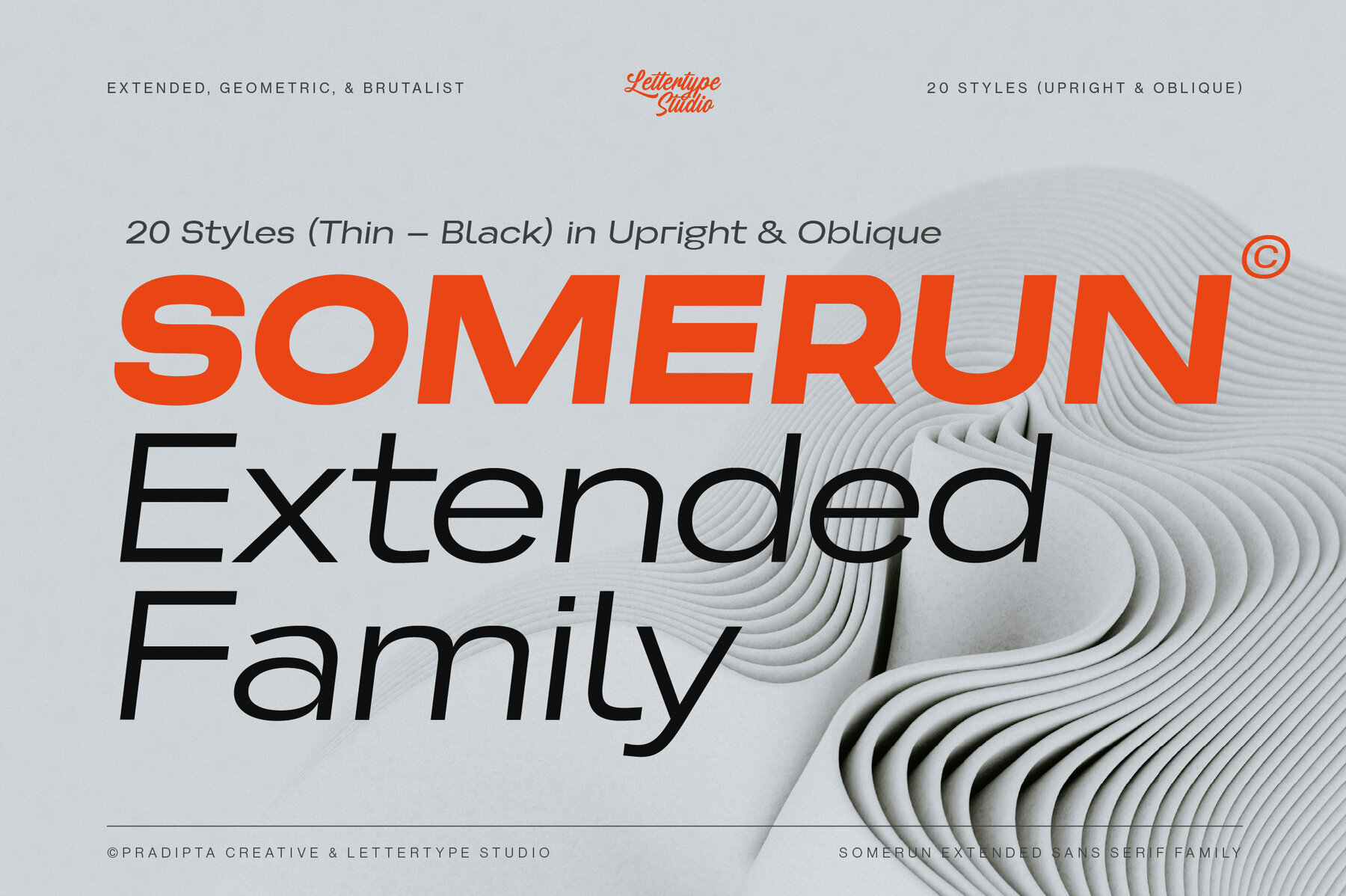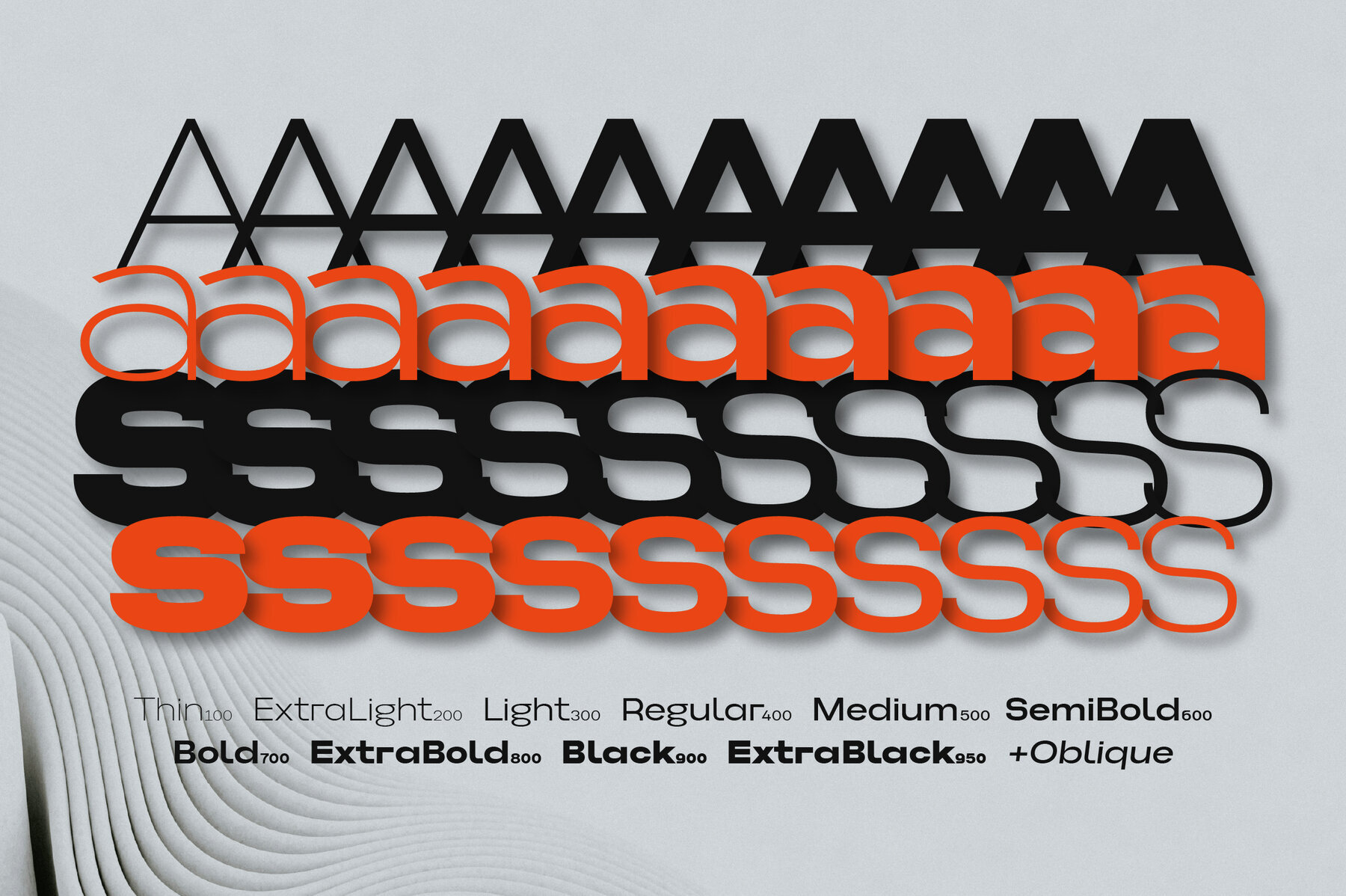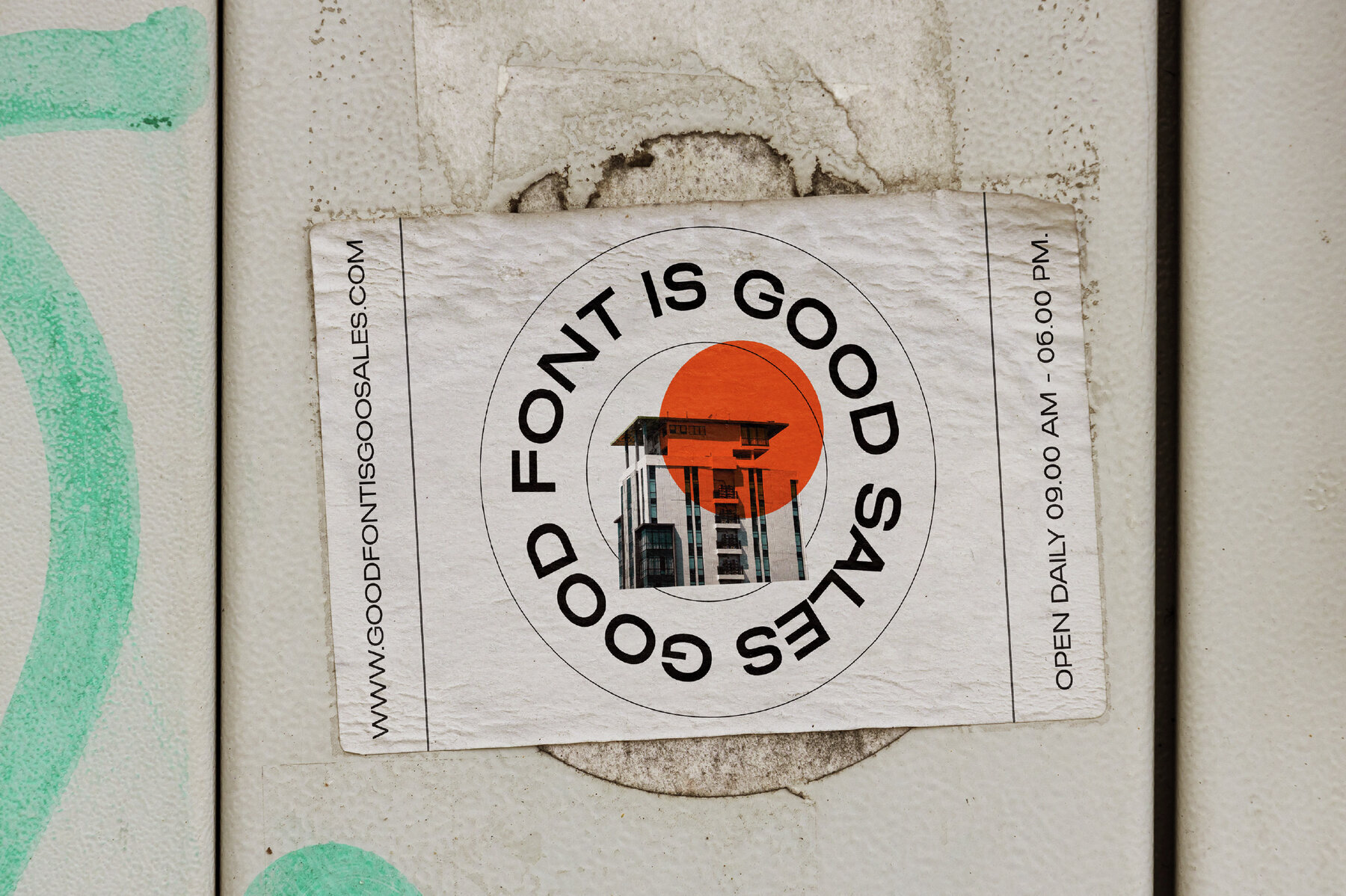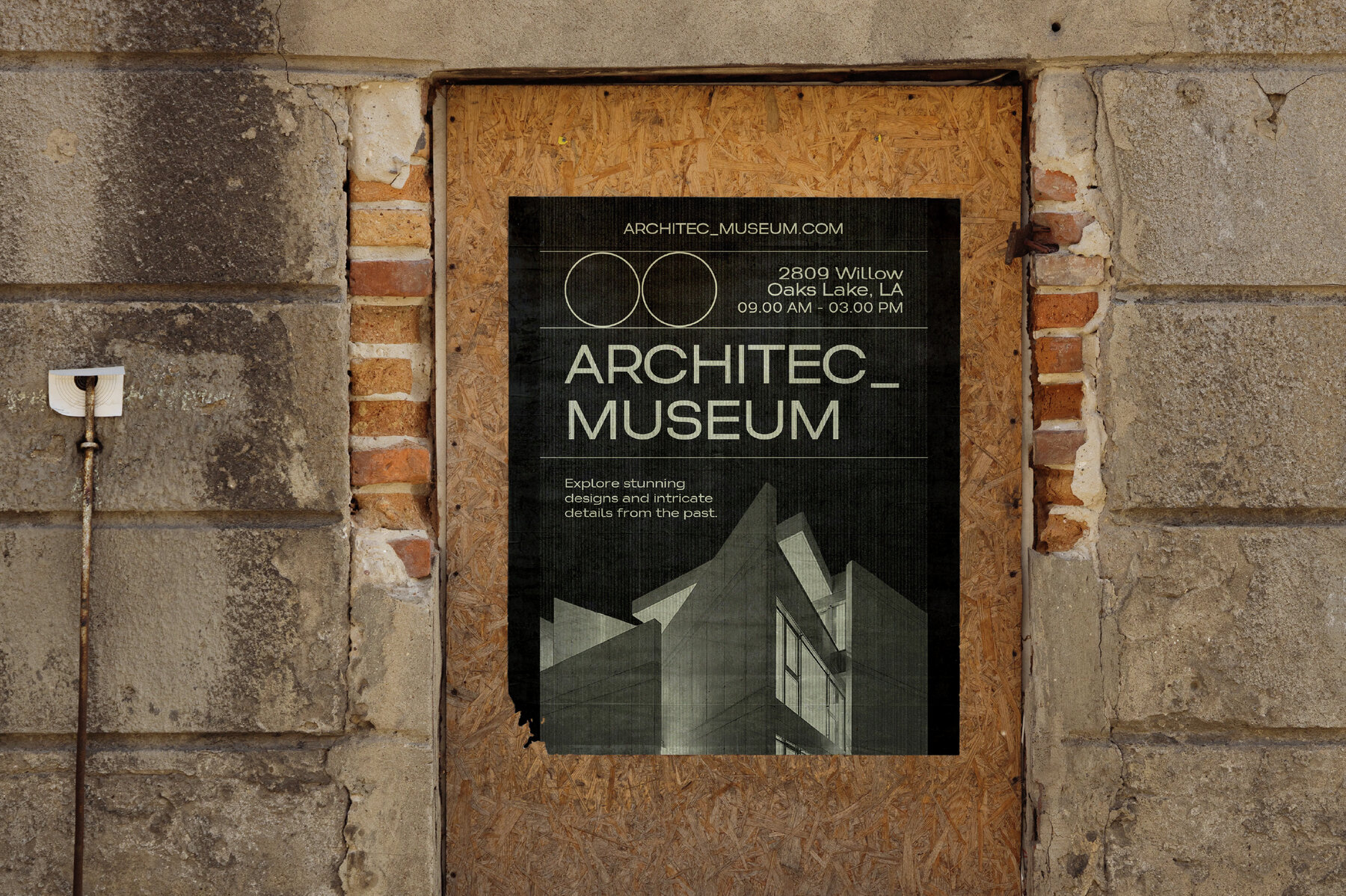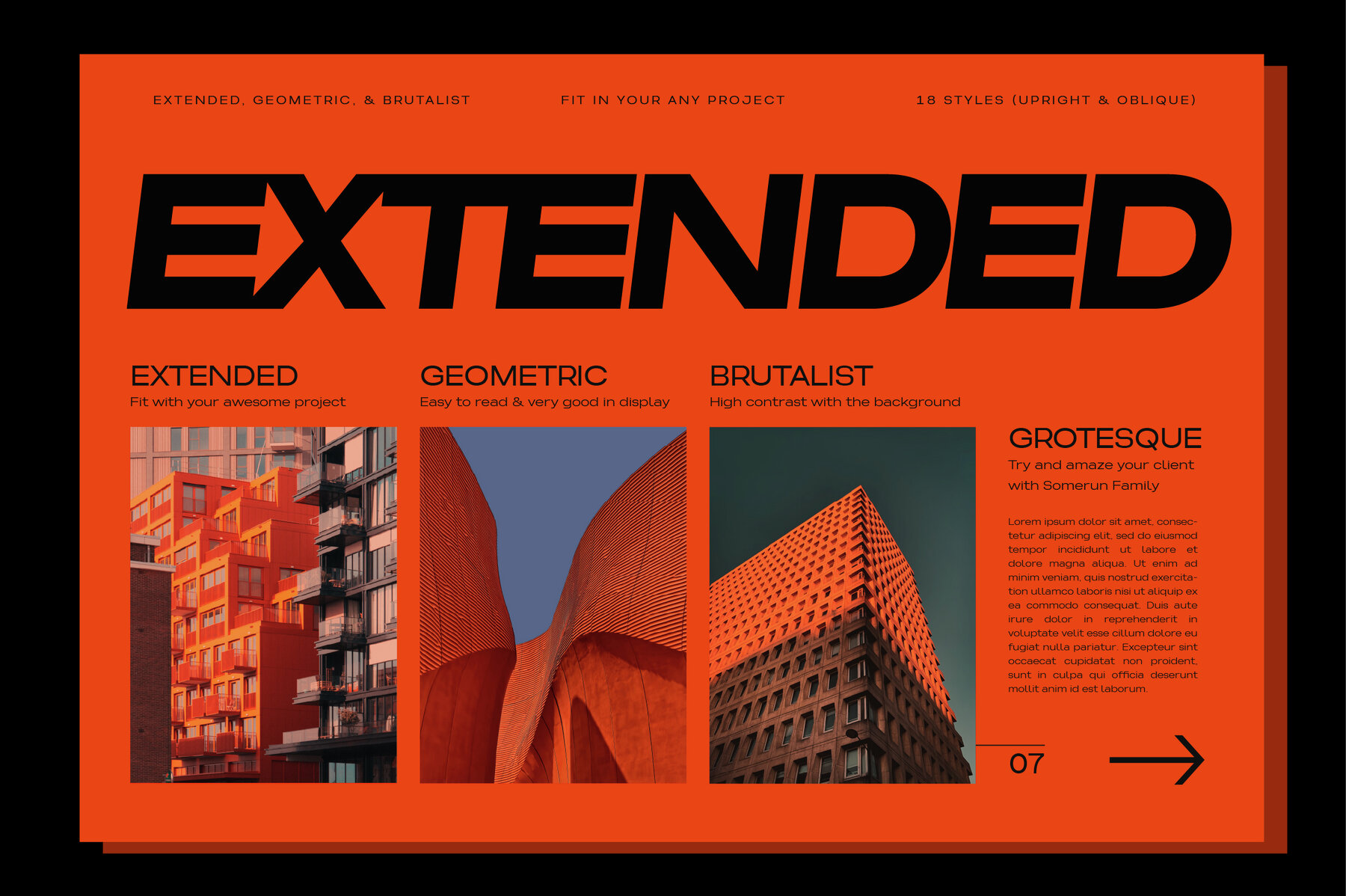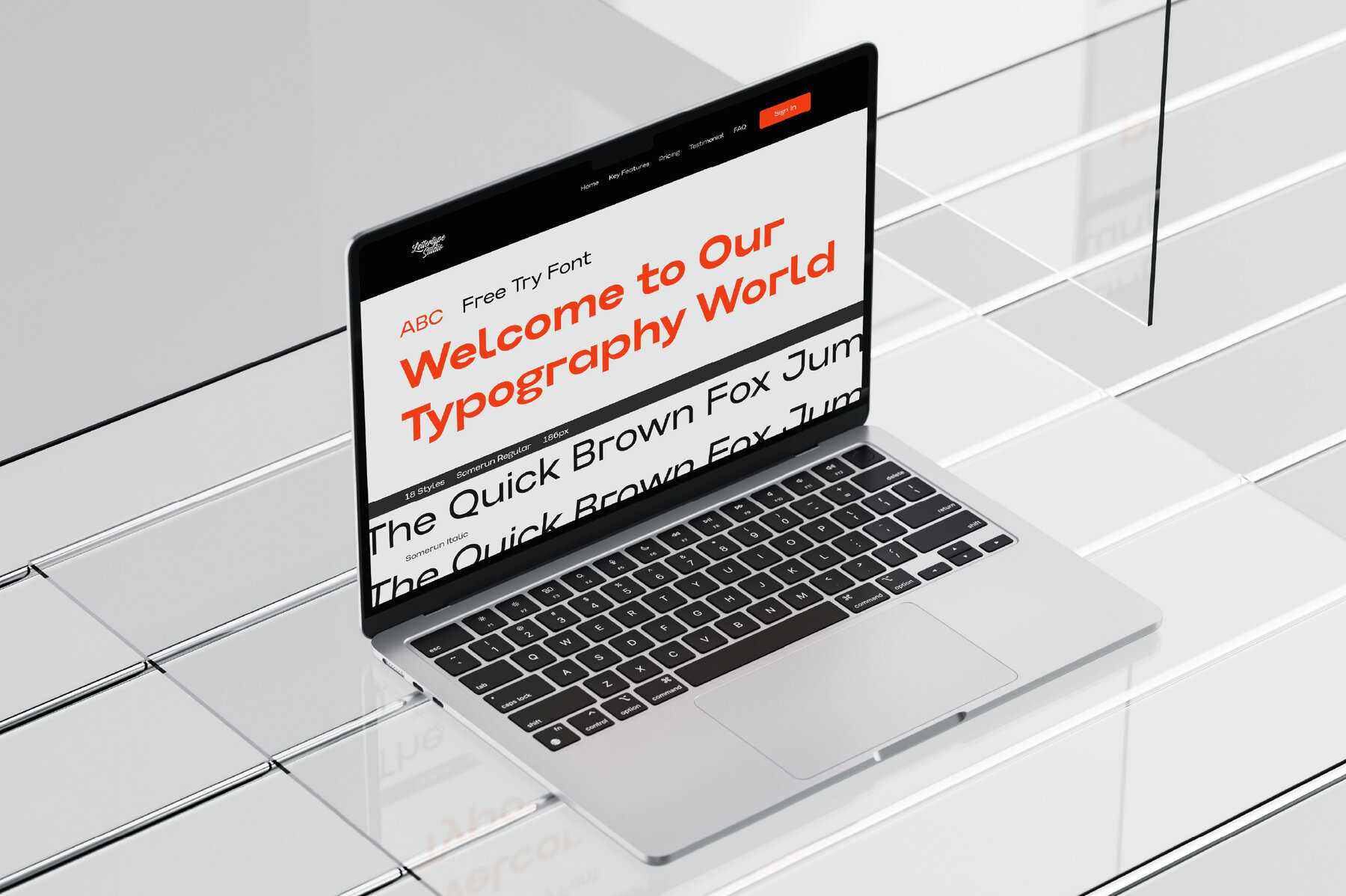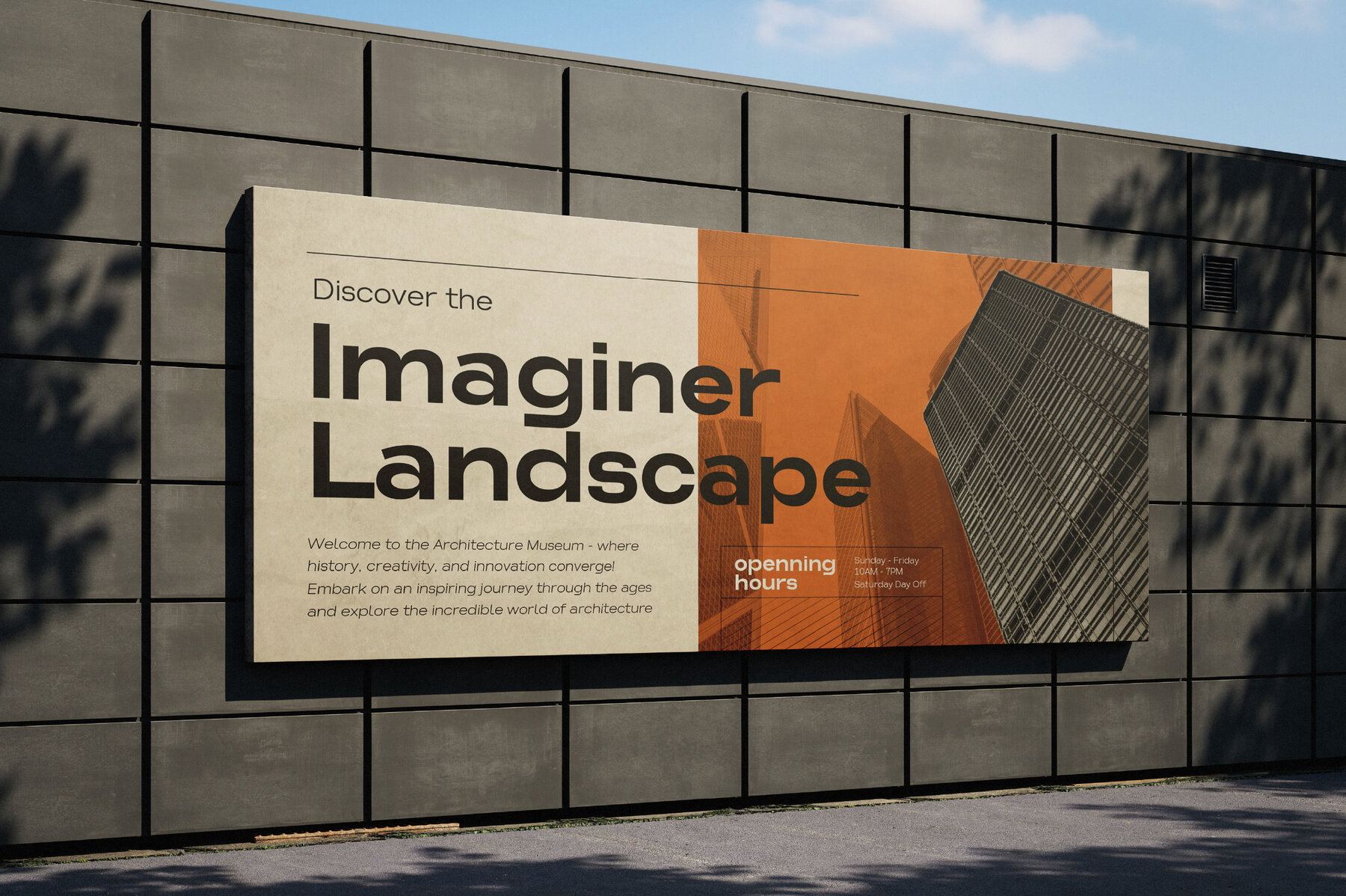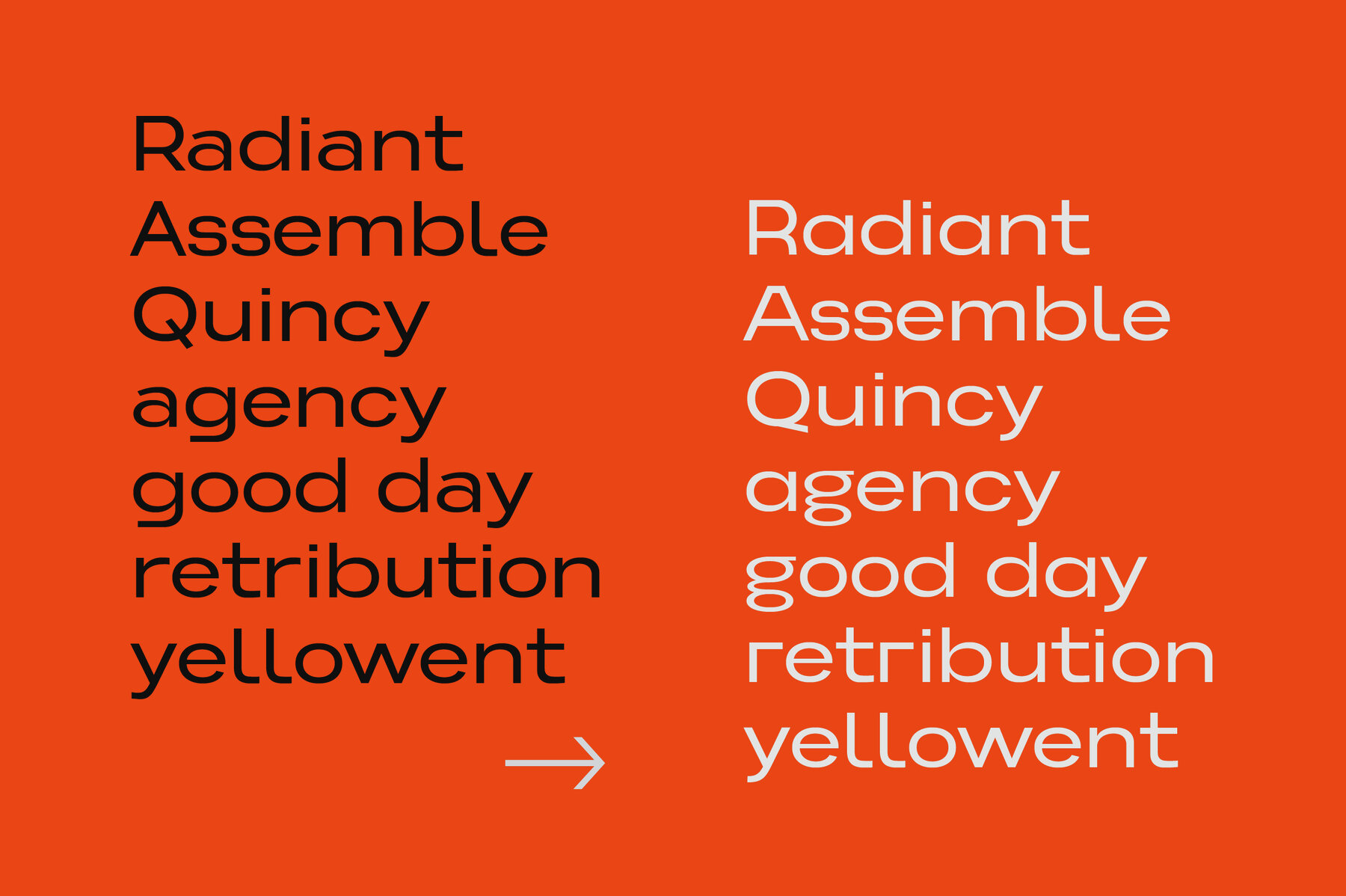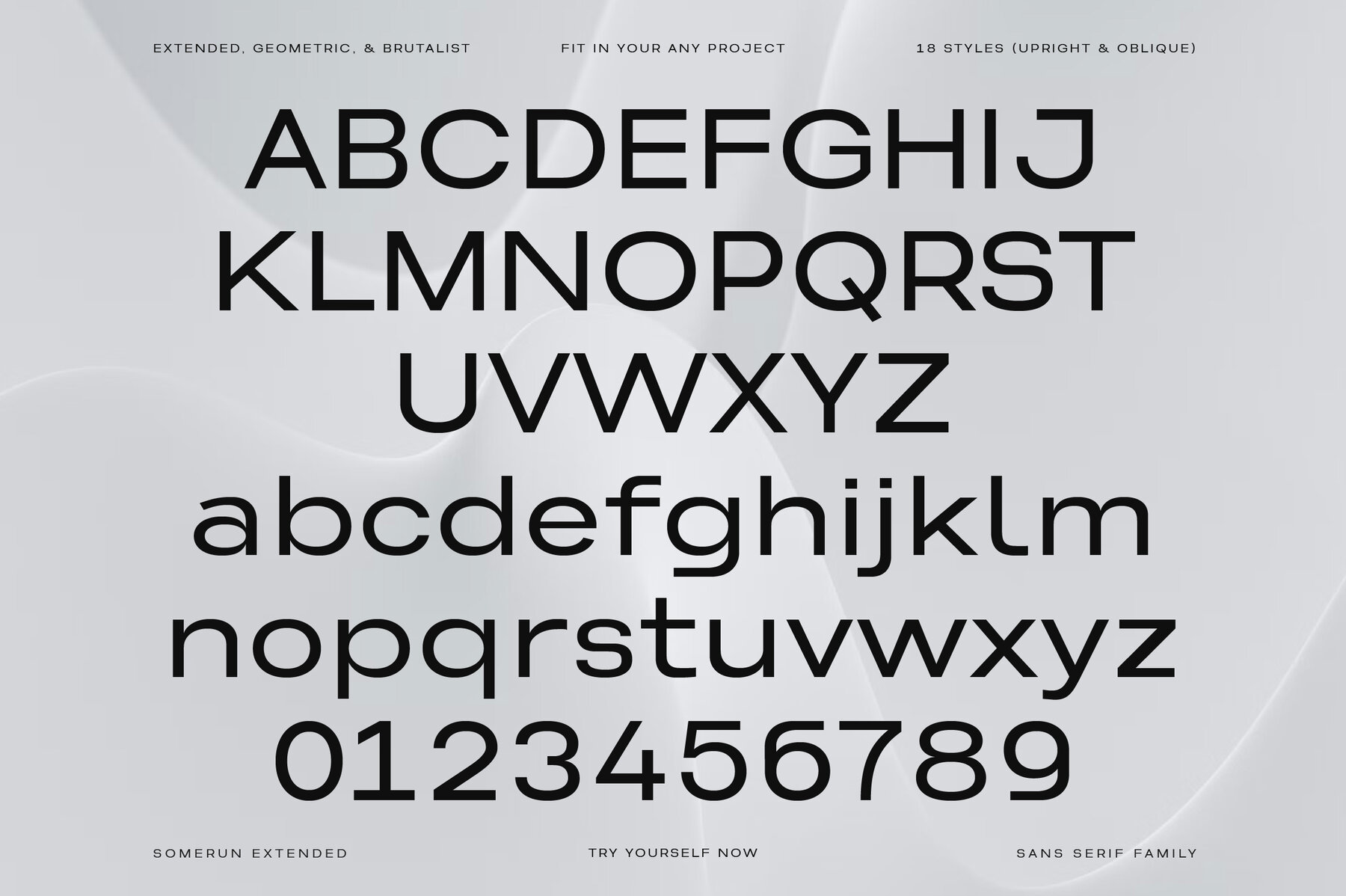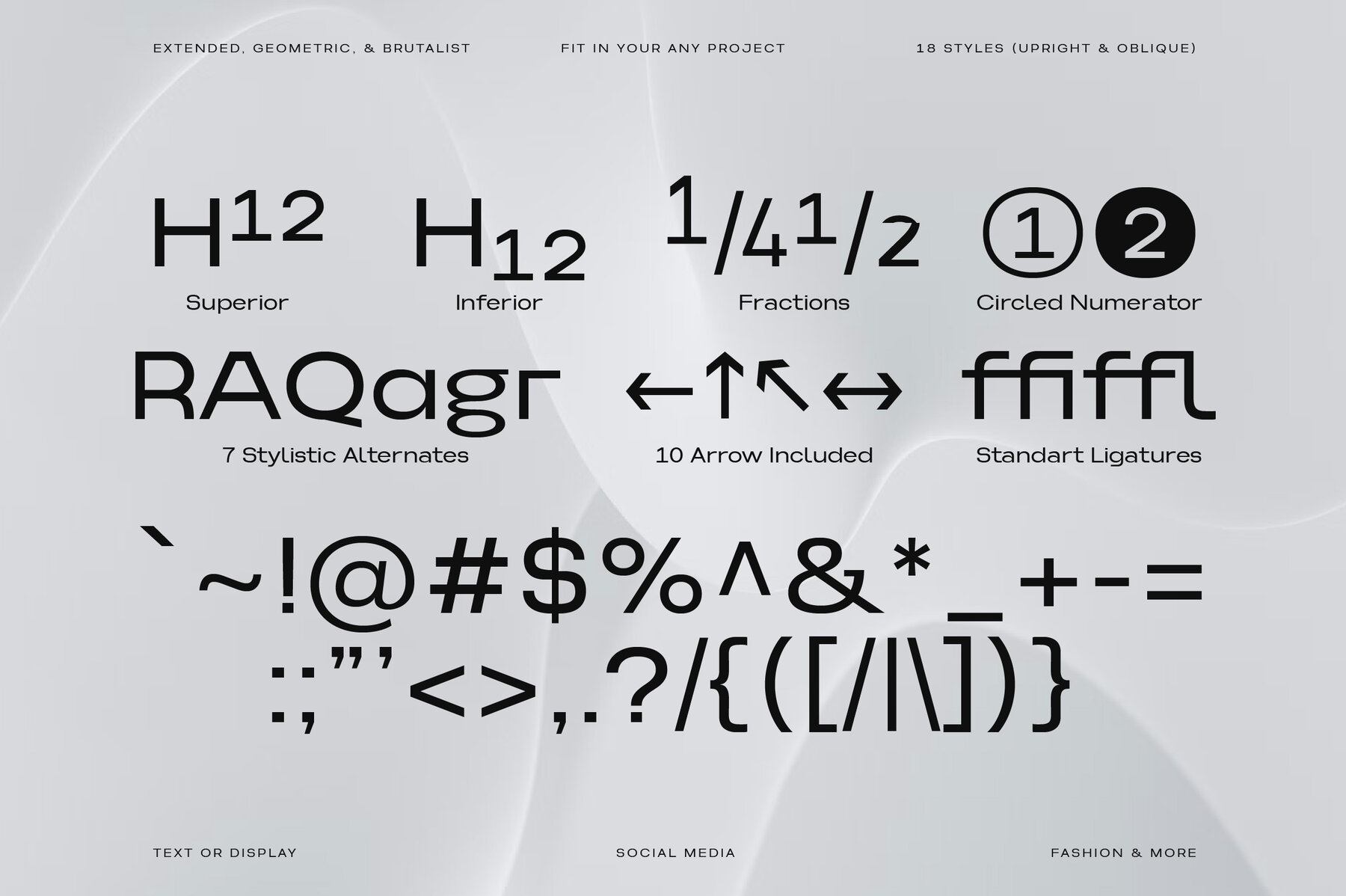
Somerun Font
Somerun offers a modern touch to typography, featuring an array of sans serif extended fonts influenced by grotesque, geometric, and brutalist styles. These fonts are designed to deliver clarity and a striking visual presence, making them perfect for contemporary design projects. With a wide variety of weights ranging from thin to extra black, Somerun includes 20 different weights alongside oblique styles. OpenType features are plentiful, offering 7 stylistic alternates (A, R, Q, a, g, r, & y), a range of figure variations such as superiors, inferiors, fractions, circled numerators, and standard ligatures (fi, ff, fl, ffi, & ffl). The fonts provide comprehensive Latin language support. Somerun extended sans serif fonts focus on impeccable legibility and seamless aesthetic appeal. They are clean, modern, and versatile, suitable for various projects, including fashion, print design, social media, signage, branding, UI/UX, web typography, packaging, and editorial design. Perfect for:Somerun Sans Serif: Modern Typography Excellence